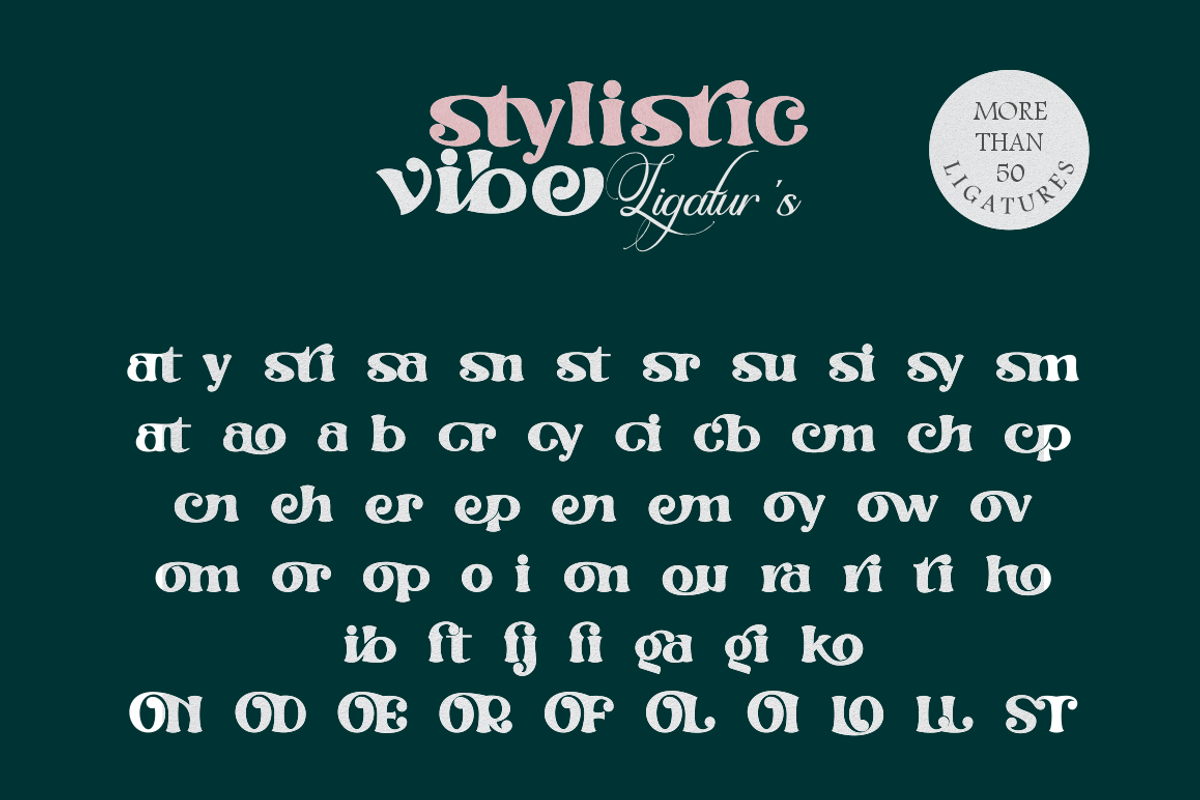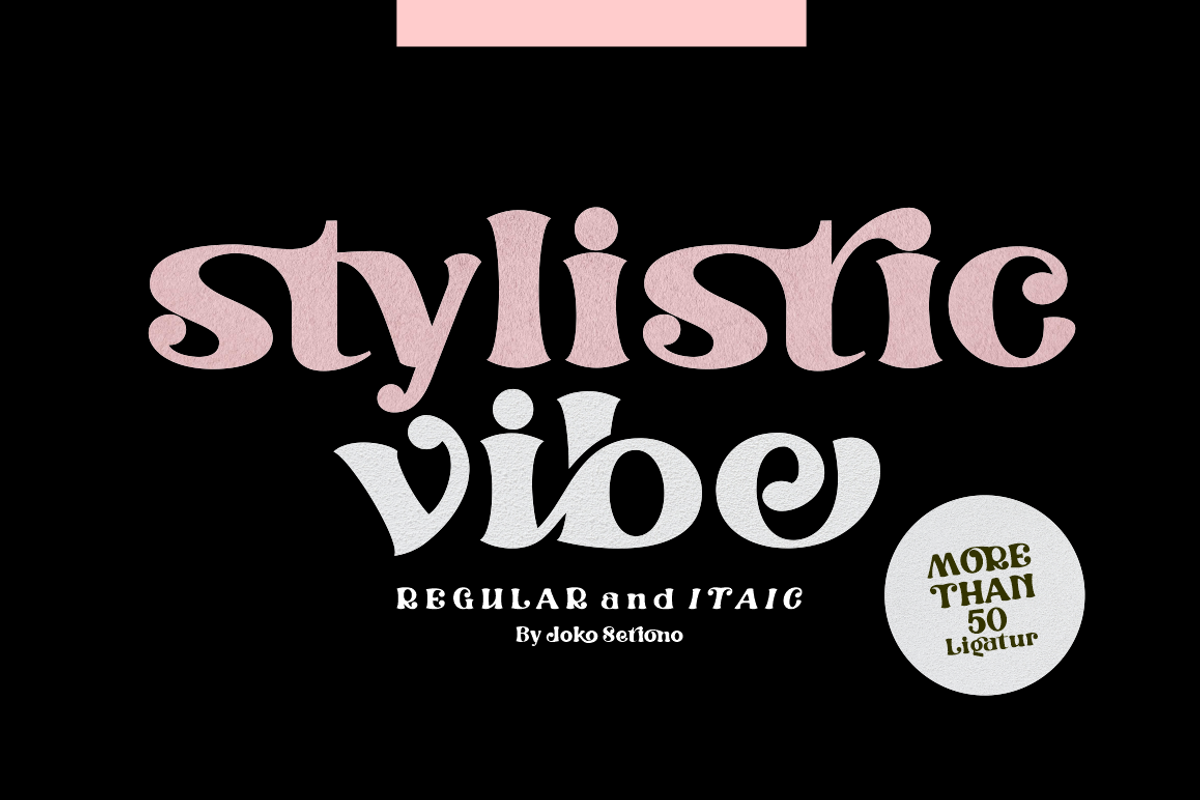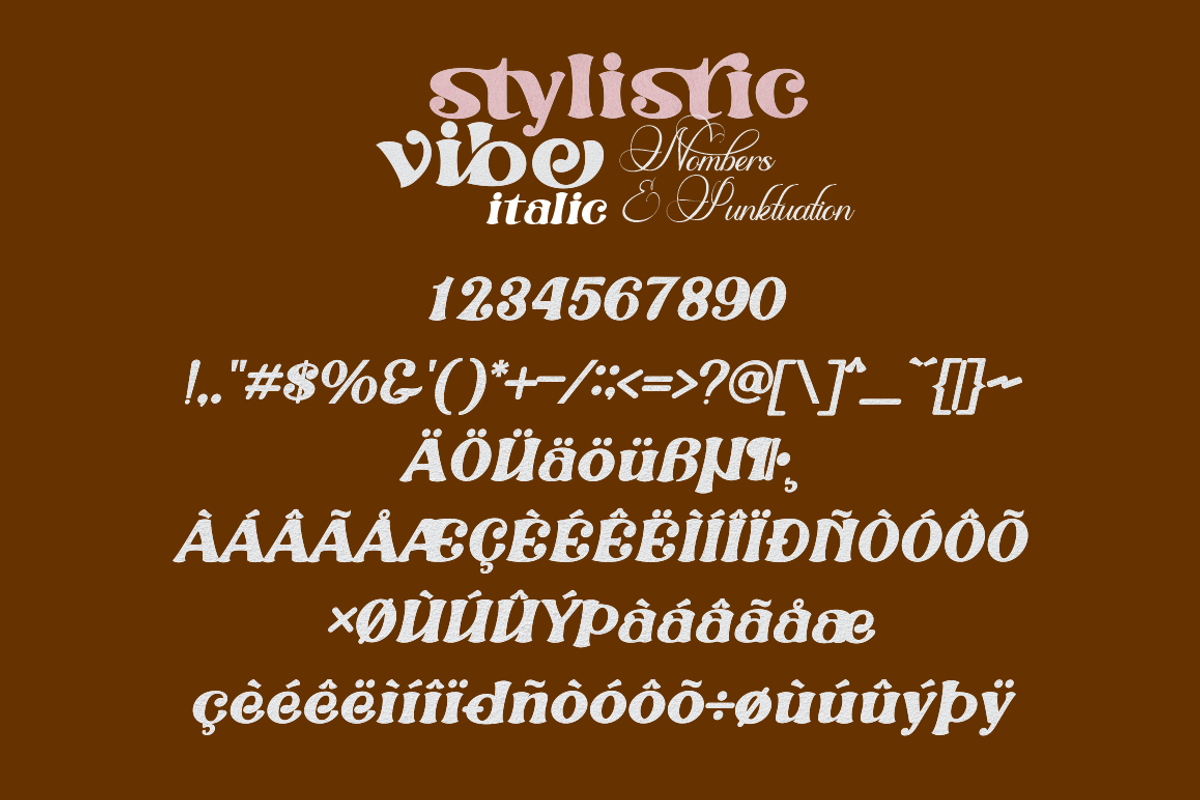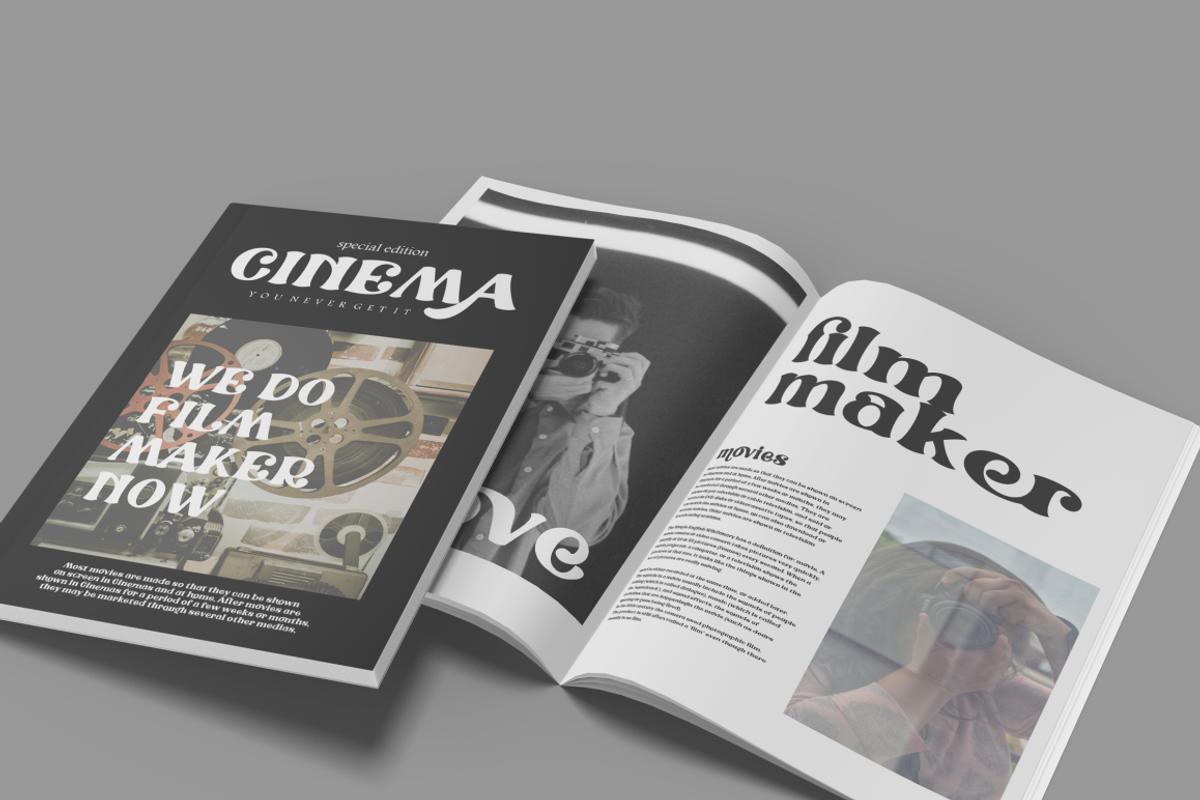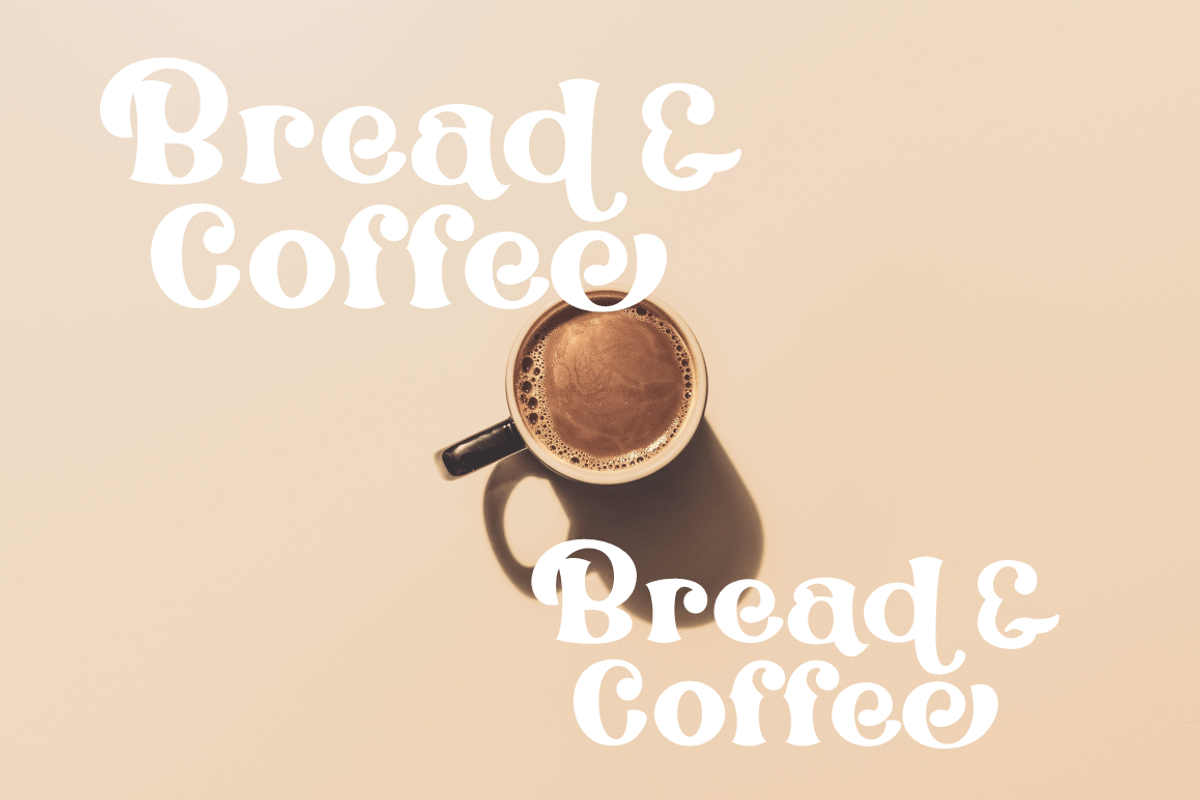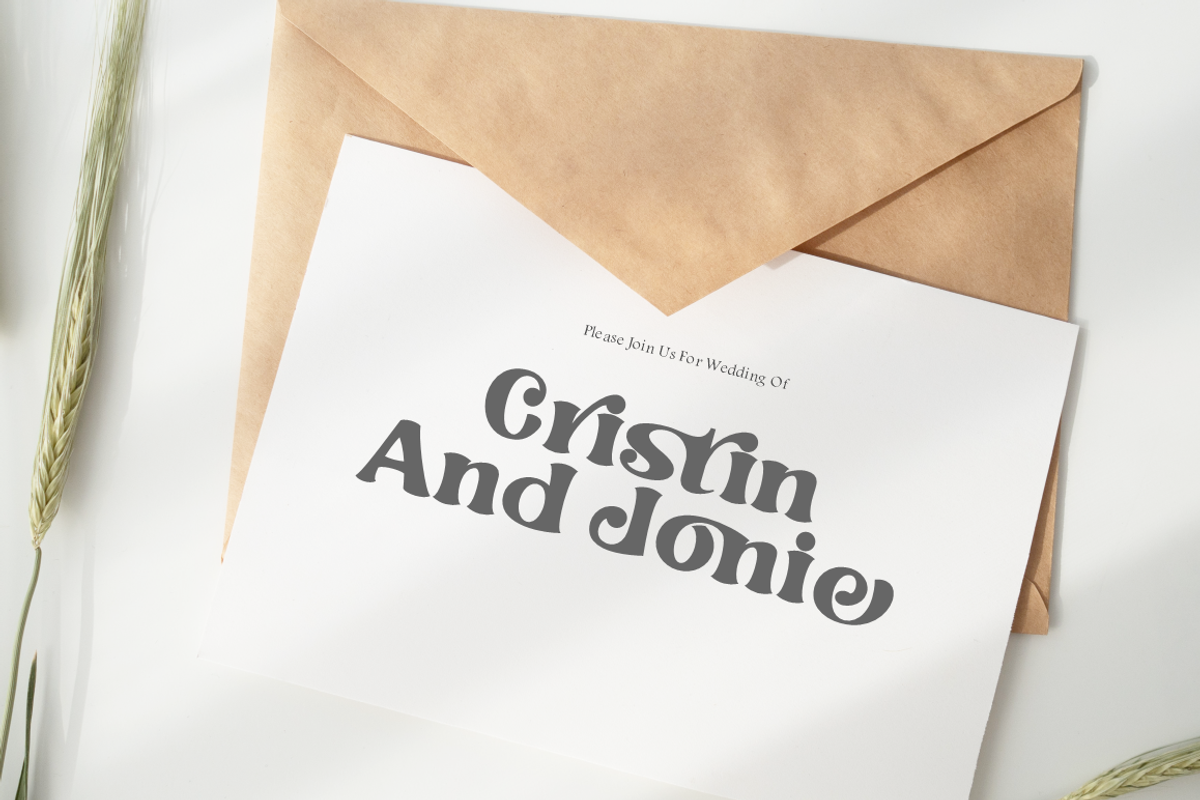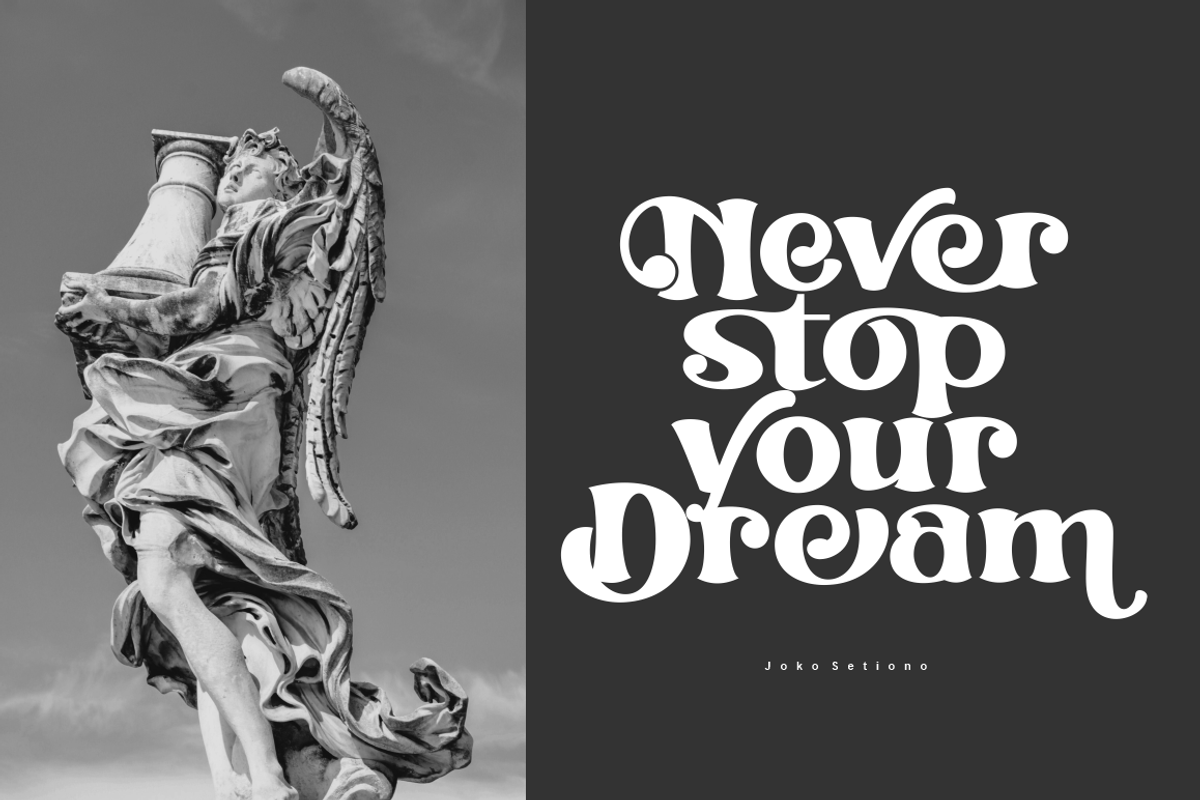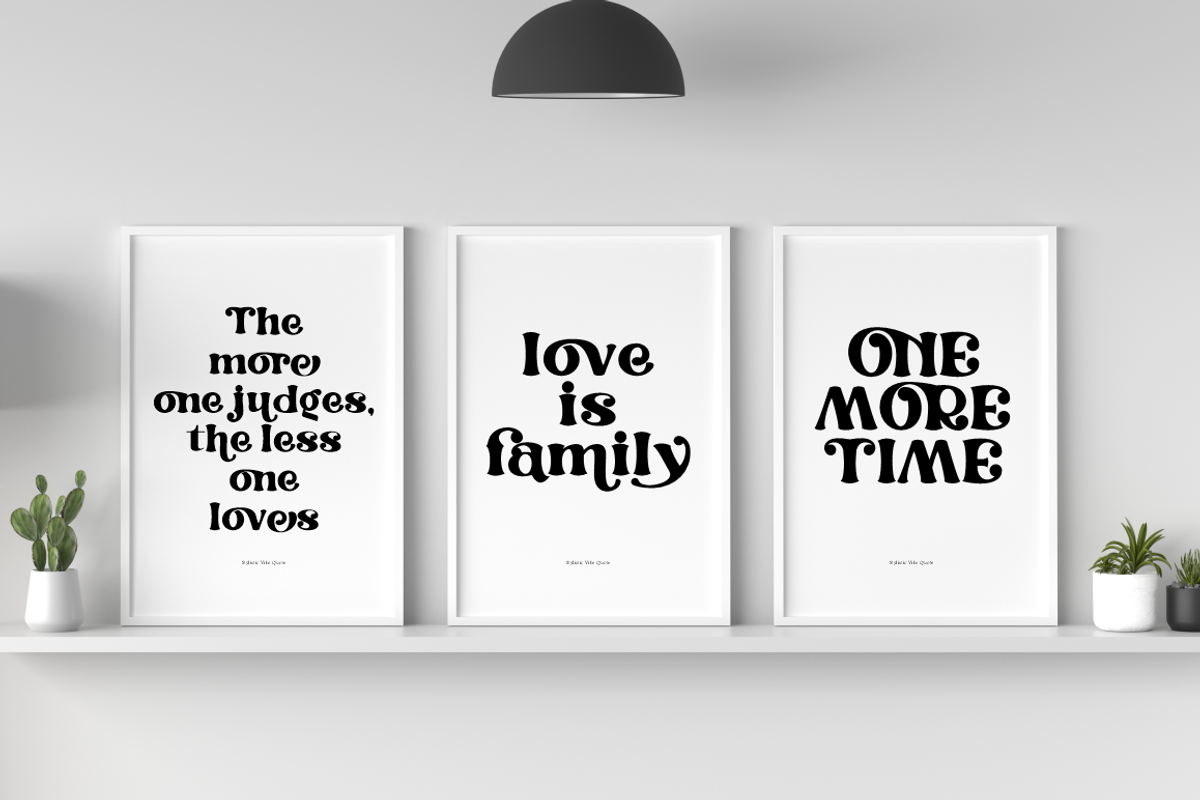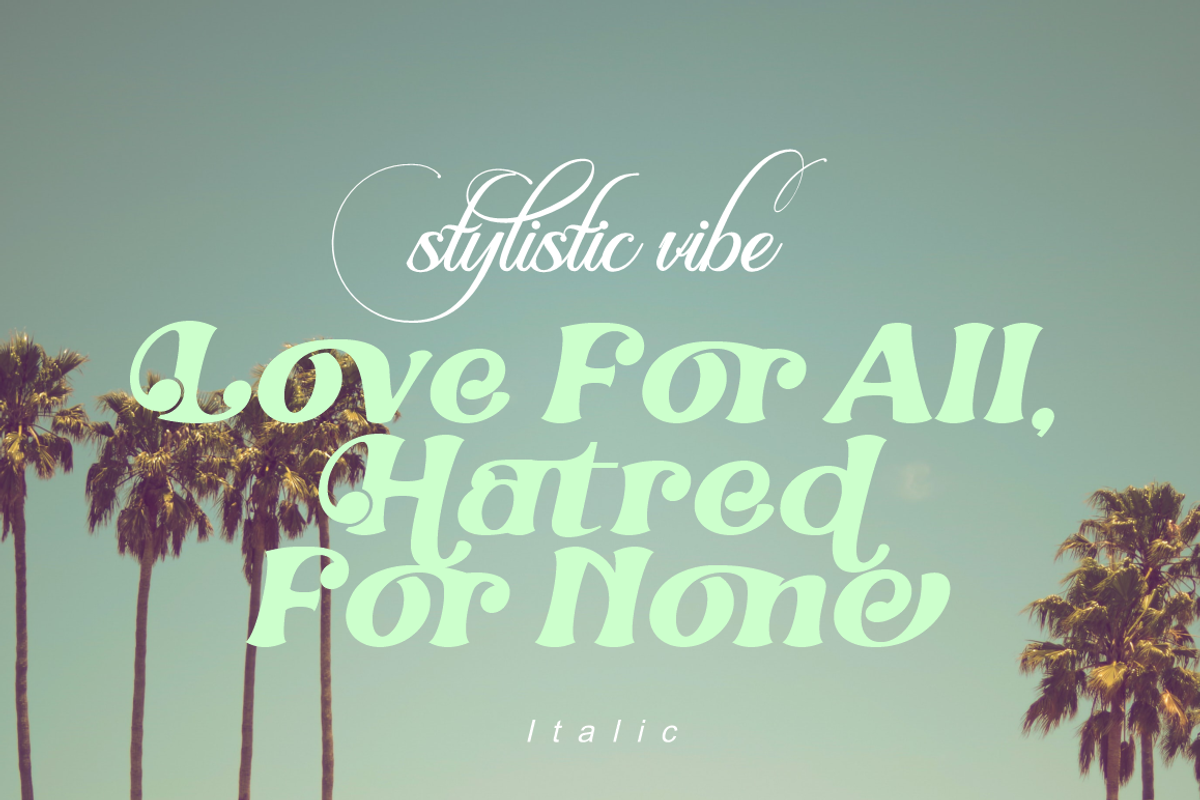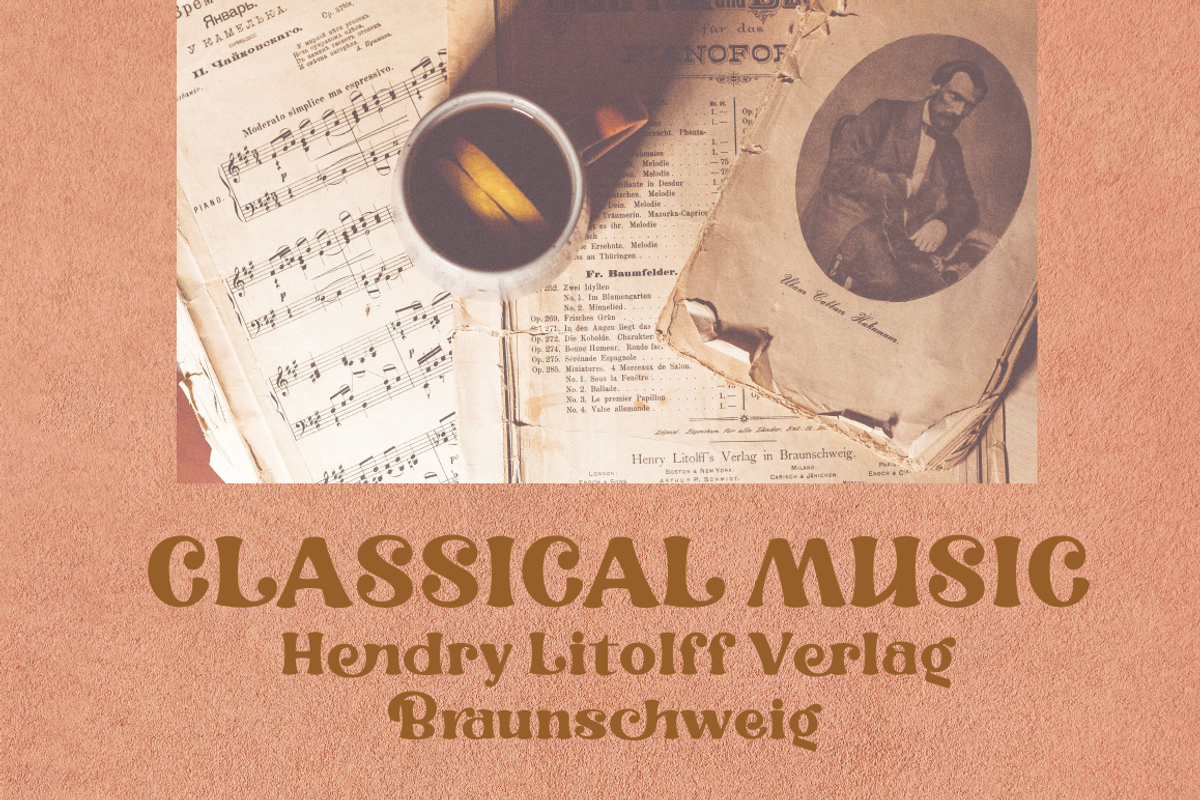
Stylistic Vibe
Stylistic Vibe is a modern display font that is easy to read, bold, and stylish. It is defined by smooth curves and is perfect for fashion branding or editorial design. Add it with confidence to your projects, and you'll love the results.
- alternate